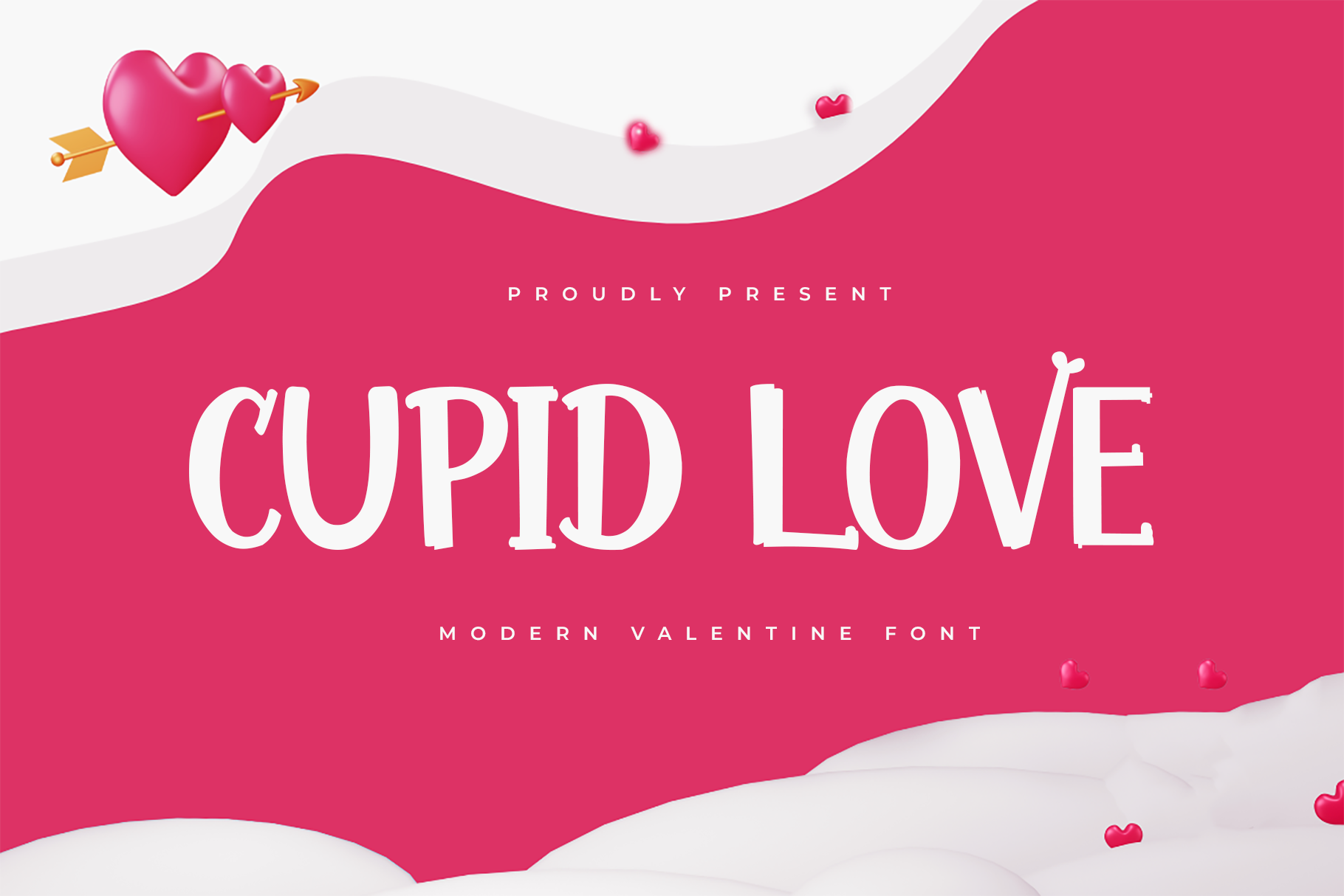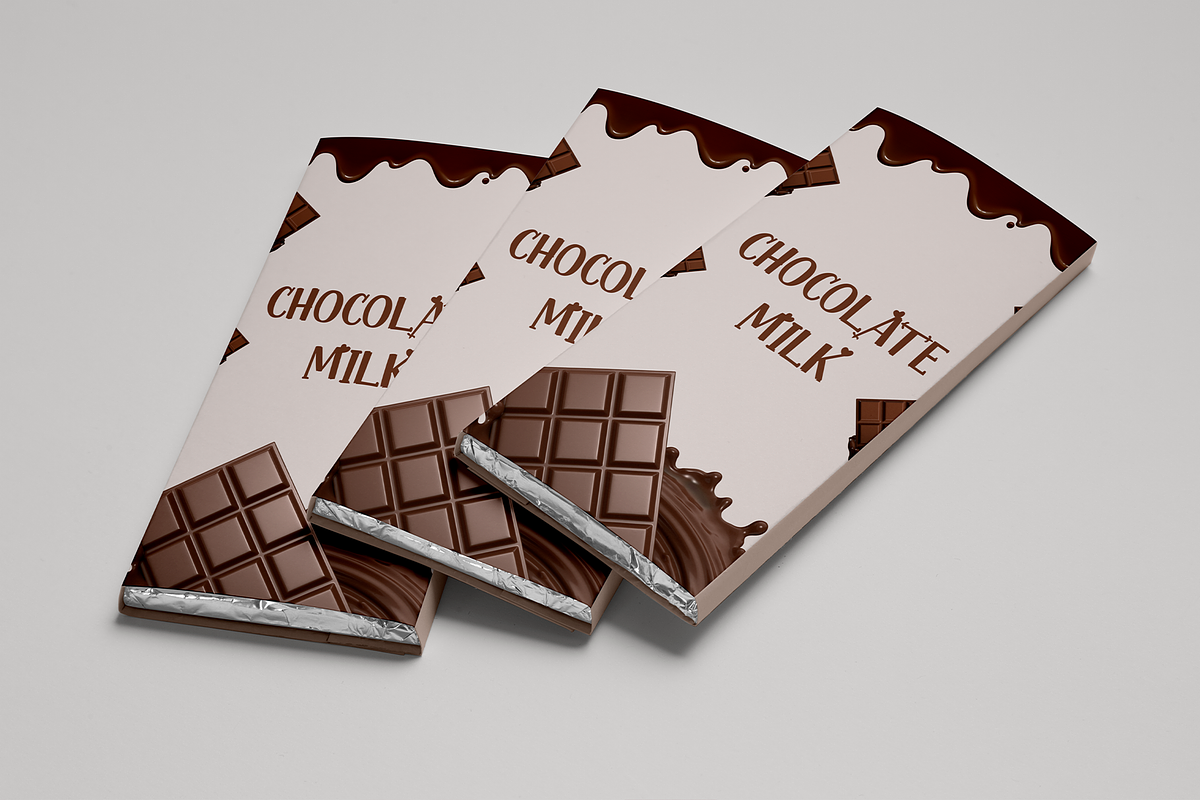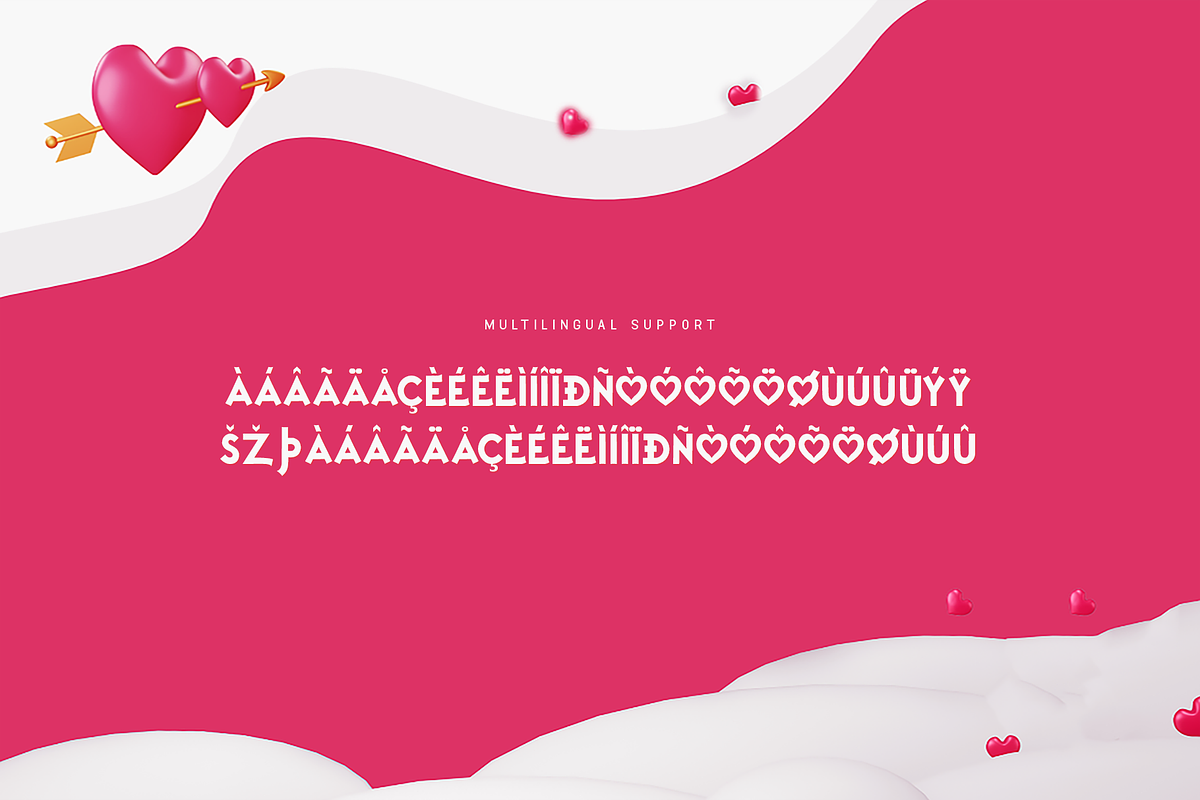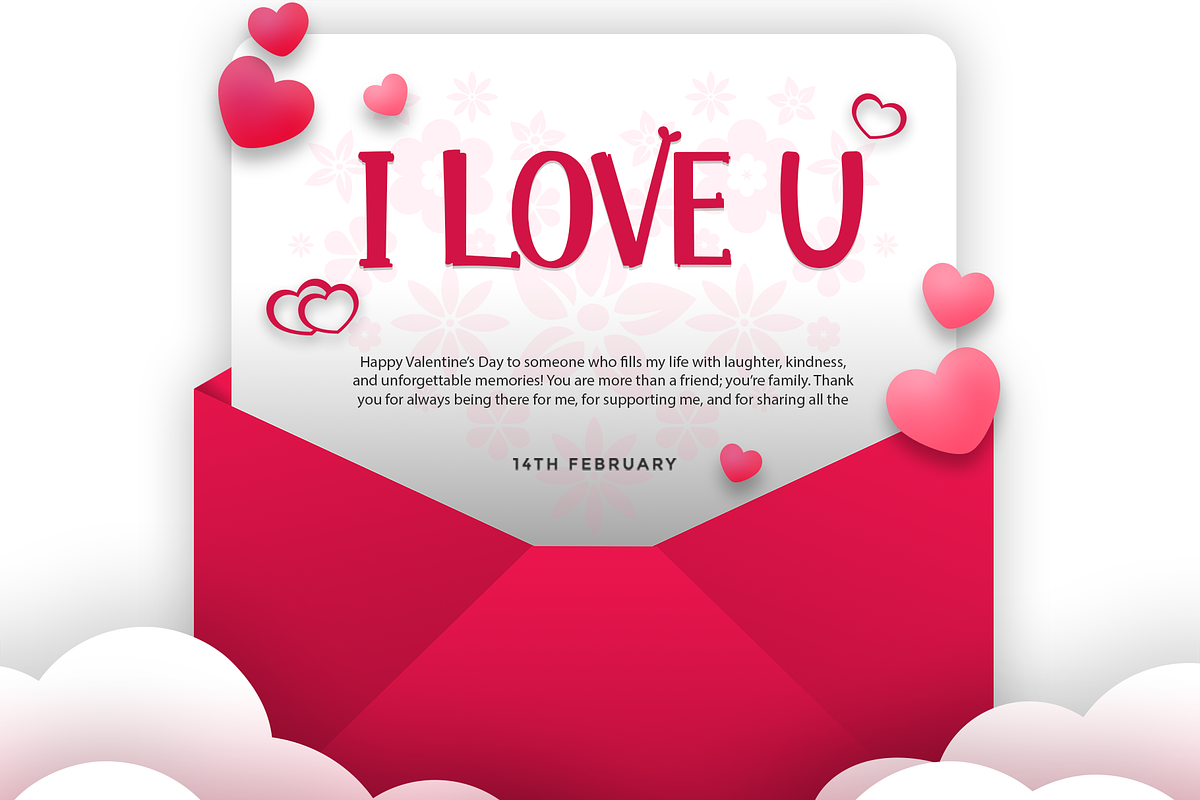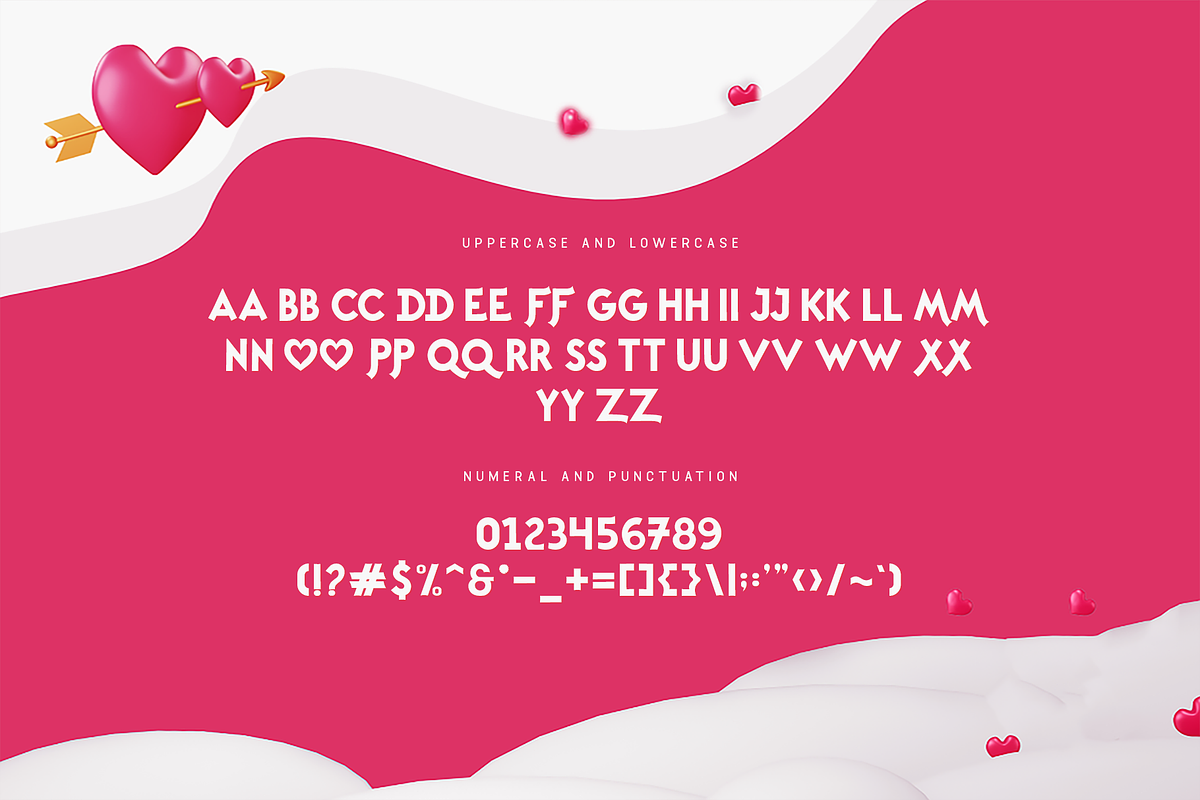
Cupid Love - A Modern Valentine Font
Spread love and warmth with Cupid Love, a playful and modern Valentine font crafted to bring joy to your romantic designs. Featuring whimsical strokes and heart-shaped accents, this typeface is perfect for Valentine’s Day cards, love letters, party decorations, and branding projects.
Packed with stylistic alternates and charming ligatures, Cupid Love transforms ordinary designs into delightful creations. Its cheerful yet versatile style makes it suitable for both personal and professional projects, ensuring your designs stand out with heartfelt beauty.